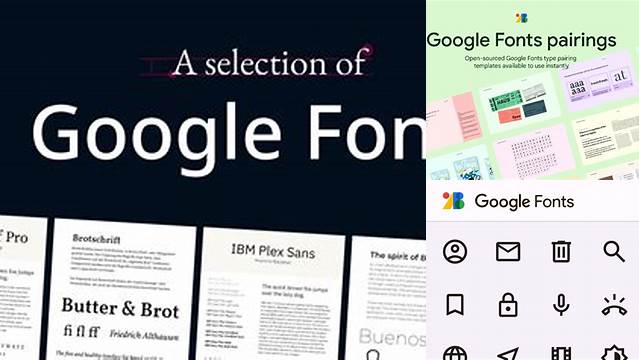
Google Fonts Icons In Figma: Your Ultimate Guide
Hey guys! Ever wanted to use those sleek Google Fonts icons in your Figma designs but weren't quite sure how to get them in there? You're not alone! Many designers face this little hurdle, but don't worry, it's totally conquerable. This guide will walk you through everything you need to know about integrating Google Fonts icons into Figma, from the basic methods to some pro tips for a smoother workflow. We’ll dive into why using Google Fonts icons is a great choice, explore different ways to import them, and tackle some common issues you might encounter. So, let's get started and level up your Figma game!
Why Use Google Fonts Icons in Figma?
Before we jump into the "how," let's talk about the "why." Why should you bother using Google Fonts icons in Figma anyway? There are actually several compelling reasons:
- Scalability and Vector Graphics: First and foremost, Google Fonts icons are vector-based. This means they can be scaled up or down without losing any quality. Say goodbye to pixelated icons! Whether you're designing for a tiny mobile screen or a giant billboard, your icons will look crisp and clean. This is a huge advantage over raster-based images like JPEGs or PNGs, which can become blurry when resized.
- Consistency and Branding: Using Google Fonts icons helps maintain a consistent visual language across your designs. Google Fonts provides a vast library of icons, all designed with a cohesive style. This is crucial for branding, as it ensures that your icons align with your overall design aesthetic. By sticking to a single source for your icons, you can create a unified and professional look for your projects.
- File Size Optimization: Icons from Google Fonts are incredibly lightweight. Since they are vector-based, they take up very little space compared to image files. This is essential for optimizing your Figma files and ensuring they load quickly. Smaller file sizes mean smoother performance, especially when working on complex projects with numerous artboards and components. Nobody likes a laggy design file!
- Easy to Customize: Google Fonts icons are super flexible. You can easily change their size, color, and even add effects within Figma. This level of customization allows you to tailor the icons to perfectly match your design needs. For example, you might want to use a different color for an icon on hover or highlight a specific icon to draw attention. With Google Fonts icons, these adjustments are a breeze.
In essence, using Google Fonts icons in Figma offers a blend of quality, consistency, flexibility, and cost-effectiveness that's hard to beat. It's a smart choice for any designer looking to streamline their workflow and create visually stunning designs.
Here's how you can use an icon plugin, taking "Iconify" as an example:
- Install the Plugin: Go to the Figma Community, search for "Iconify," and install the plugin. It's a quick and painless process.
- Run the Plugin: In Figma, right-click on your canvas, go to "Plugins," and select "Iconify." The plugin panel will pop up.
- Search for Icons: Use the search bar in the Iconify panel to find the icon you need. You can search by name, keyword, or even browse through different icon sets.
- Import the Icon: Once you've found the perfect icon, simply click on it, and it will be imported directly into your Figma canvas as a vector graphic. How cool is that?
- Customize the Icon: Now you can resize, recolor, and modify the icon as needed. Since it's a vector, you have full control over its appearance.
The beauty of using an icon plugin is its simplicity and speed. It streamlines the process of finding and importing icons, allowing you to stay focused on your design. Plus, plugins like Iconify offer a vast selection of icons, including not just Google Fonts icons but also icons from other popular libraries. This gives you a ton of options to choose from.
2. Copying and Pasting from Google Fonts Website
Another method is to directly copy and paste icons from the Google Fonts website into Figma. This approach might seem a bit more manual, but it's still quite effective, especially if you only need a few icons or want to ensure you're using the latest versions.
Here's the step-by-step:
- Visit Google Fonts: Go to the Google Fonts website (https://fonts.google.com/).
- Search for "Material Icons": In the search bar, type "Material Icons." This will bring up the Material Icons font, which is a collection of icons designed by Google.
- Browse and Select Icons: Scroll through the icons or use the search bar within the Material Icons page to find the specific icon you need. Click on the icon to view its details.
- Copy the Icon: On the icon details page, you'll see the icon displayed along with its name. Click on the icon itself, and it will be copied to your clipboard as a character.
- Paste into Figma: Go to Figma, select the text tool (T), and create a text box. Paste the copied icon character into the text box.
- Set the Font: With the text box selected, go to the text properties in the right sidebar and set the font to "Material Icons." The pasted character will now render as the icon.
- Customize the Icon: You can now resize, recolor, and modify the icon just like any other text element in Figma.
This method is straightforward and doesn't require any plugins. However, it can be a bit more time-consuming if you need to import a large number of icons. But for occasional use, it's a perfectly viable option.
3. Using SVG Files
A third approach is to download Google Fonts icons as SVG (Scalable Vector Graphics) files and then import them into Figma. This method gives you the most control over the icons and allows you to easily edit their individual paths and shapes.
Here's how it works:
- Download SVG Files: You can download SVG files for Google Fonts icons from various sources, such as the official Material Design Icons GitHub repository or other icon repositories.
- Import into Figma: In Figma, go to "File" > "Import" and select the SVG file you downloaded. The icon will be imported onto your canvas as a vector graphic.
- Edit the Icon: Since the icon is imported as a vector, you can now edit its individual paths, shapes, and colors using Figma's vector editing tools. This gives you maximum flexibility in customizing the icon.
Using SVG files is a great option if you need to make detailed modifications to the icons or want to ensure you have a local copy of the icons for offline use. However, it can be a bit more involved than the plugin or copy-paste methods.
Pro Tips for Working with Google Fonts Icons in Figma
Now that you know the basic methods for importing Google Fonts icons, let's dive into some pro tips to help you work even more efficiently and effectively:
- Create a Component Library: If you're using the same icons repeatedly, create a component library in Figma. This will allow you to easily reuse the icons across your designs and ensure consistency. Simply turn the imported icons into components and organize them in a library. When you need an icon, just drag it from the library onto your canvas. This will save you a ton of time and effort in the long run.
- Use Icon Styles: To maintain consistency in your icon styling, use Figma's Styles feature. Create styles for different icon sizes, colors, and effects. Then, apply these styles to your icons. If you need to make a change, you can simply update the style, and all the icons using that style will be updated automatically. This is a huge time-saver and helps ensure a consistent visual language throughout your designs.
- Organize Your Icons: As your icon collection grows, it's essential to keep them organized. Use descriptive names for your icons and group them into logical categories. This will make it much easier to find the icons you need when you need them. You can also use Figma's layers panel to organize your icons and keep your file tidy.
- Experiment with Different Styles: Don't be afraid to experiment with different icon styles and see what works best for your designs. Try using different colors, sizes, and effects to create unique and eye-catching icons. You can also combine icons or add your own custom elements to create truly original designs. The possibilities are endless!
- Check for Updates: Google Fonts and icon plugins are constantly being updated with new icons and features. Regularly check for updates to ensure you have access to the latest and greatest resources. This will also help you stay up-to-date with the latest design trends and best practices.
By following these pro tips, you can take your use of Google Fonts icons in Figma to the next level and create stunning, professional-looking designs.
Even with the best methods and pro tips, you might occasionally encounter some issues when working with Google Fonts icons in Figma. Here are a few common problems and their solutions:
- Icon Not Displaying Correctly: Sometimes, an icon might not display correctly after you paste it into Figma. This is usually due to the font not being properly loaded. Make sure you have the "Material Icons" font selected for the text layer. If the issue persists, try restarting Figma or clearing your font cache.
- Icon is Pixelated: If an icon appears pixelated, it's likely because it's not a vector graphic or it has been scaled up too much. Double-check that you've imported the icon as an SVG or used a vector-based method like the plugin or copy-paste from Google Fonts. If the icon is still pixelated, try importing it at a larger size and then scaling it down.
- Can't Find a Specific Icon: If you can't find a specific icon in the Google Fonts library or plugin, try using different search terms or browsing through the icon sets. Sometimes, the icon you're looking for might have a different name than you expect. You can also try searching online for alternative icon libraries or creating your own custom icon.
- Plugin Not Working: If an icon plugin is not working correctly, try restarting Figma or reinstalling the plugin. Make sure the plugin is compatible with your version of Figma. If the issue persists, contact the plugin developer for support.
By troubleshooting these common issues, you can overcome any challenges you might face and ensure a smooth and productive workflow when working with Google Fonts icons in Figma.
So there you have it, guys! A comprehensive guide to using Google Fonts icons in Figma. We've covered the benefits of using these icons, explored various import methods, shared pro tips for efficient workflow, and even tackled some common troubleshooting scenarios. By now, you should be well-equipped to seamlessly integrate Google Fonts icons into your Figma designs.
Remember, the key is to experiment and find the methods that work best for you. Don't be afraid to try out different plugins, techniques, and styles. With a little practice, you'll be a pro at using Google Fonts icons in no time! Happy designing!